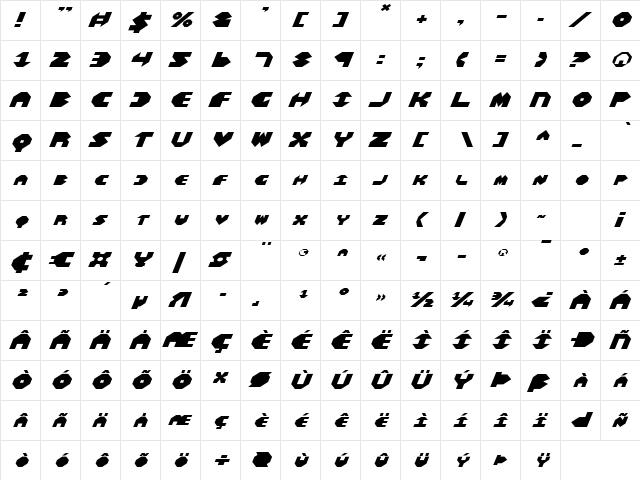
Bal-Astaral Expanded Italic Expanded Italic
| Designer | Dan Zadorozny |
Design Context for Bal-Astaral Expanded Italic Typeface
Bal-Astaral Expanded Italic is a composed and adaptable typeface that performs quietly and consistently across a wide range of design contexts. The dynamic lean of this cut emphasises speed and emphasis in any layout.
Pro Tip: Try Bal-Astaral Expanded Italic for annotation and caption copy alongside an upright companion — the contrast in angle creates a dynamic but ordered typographic system.